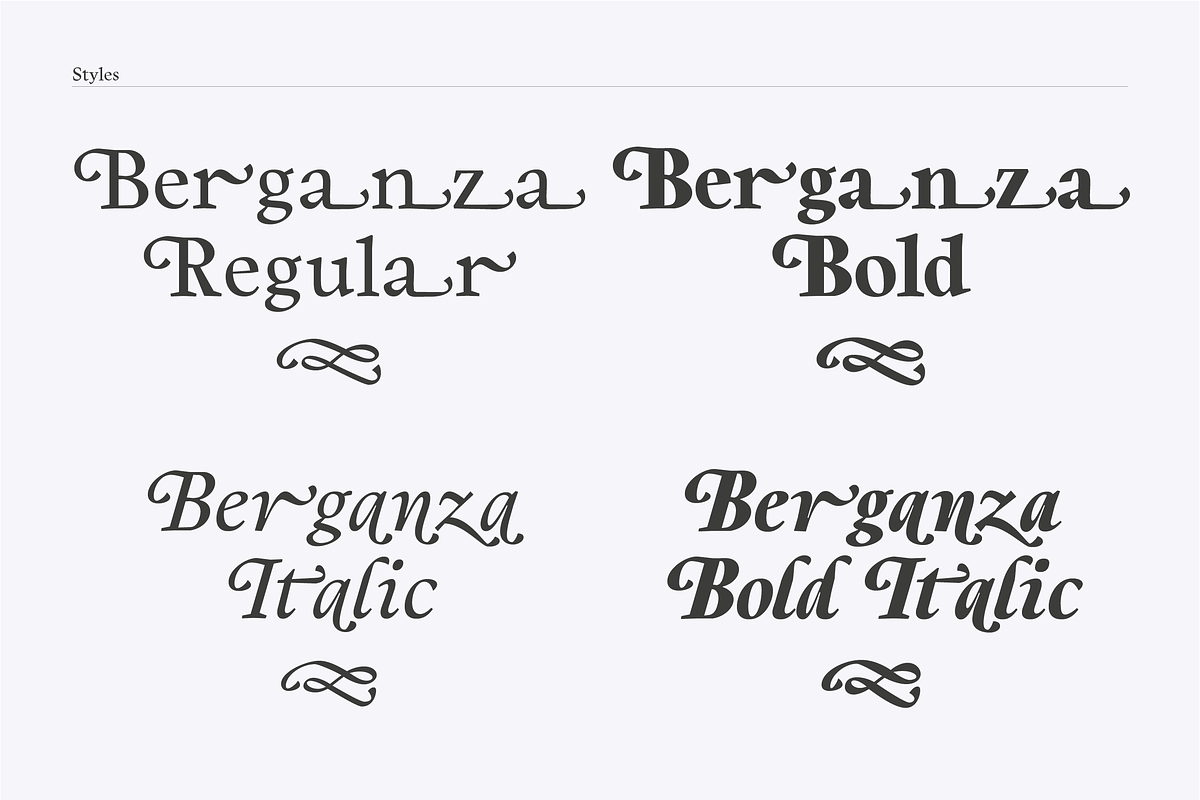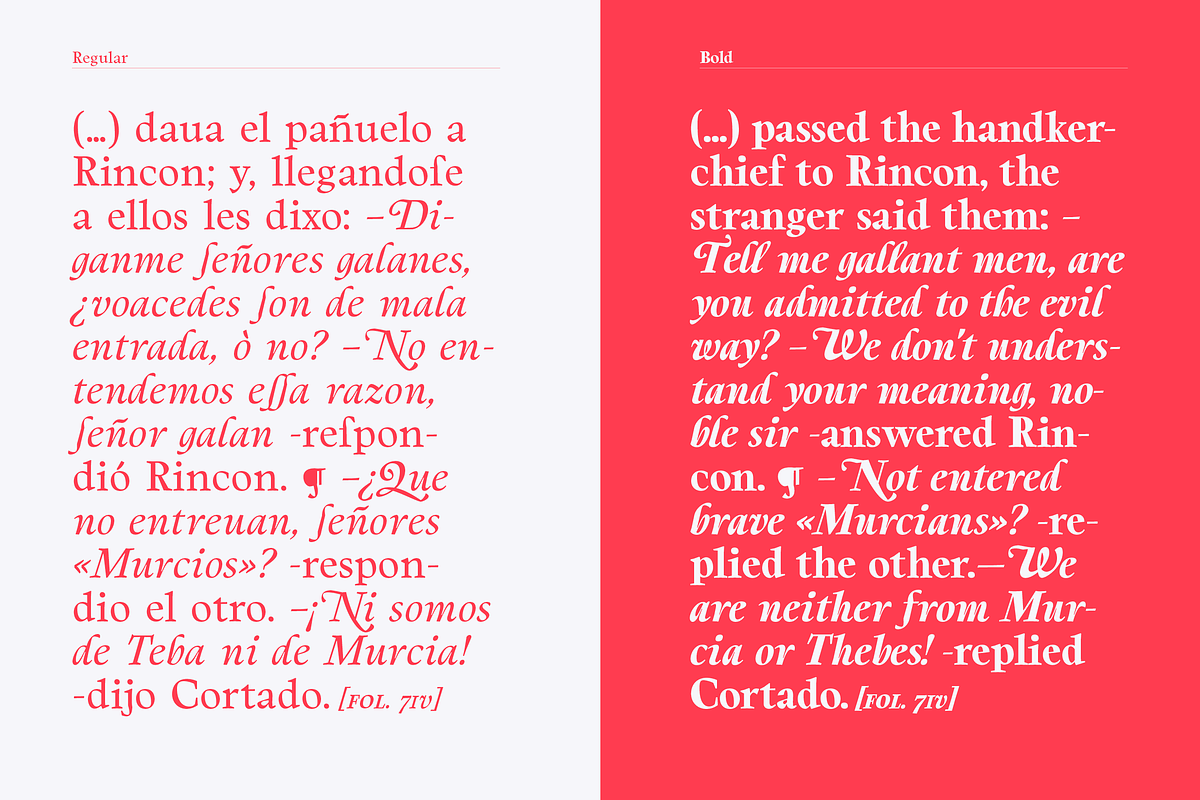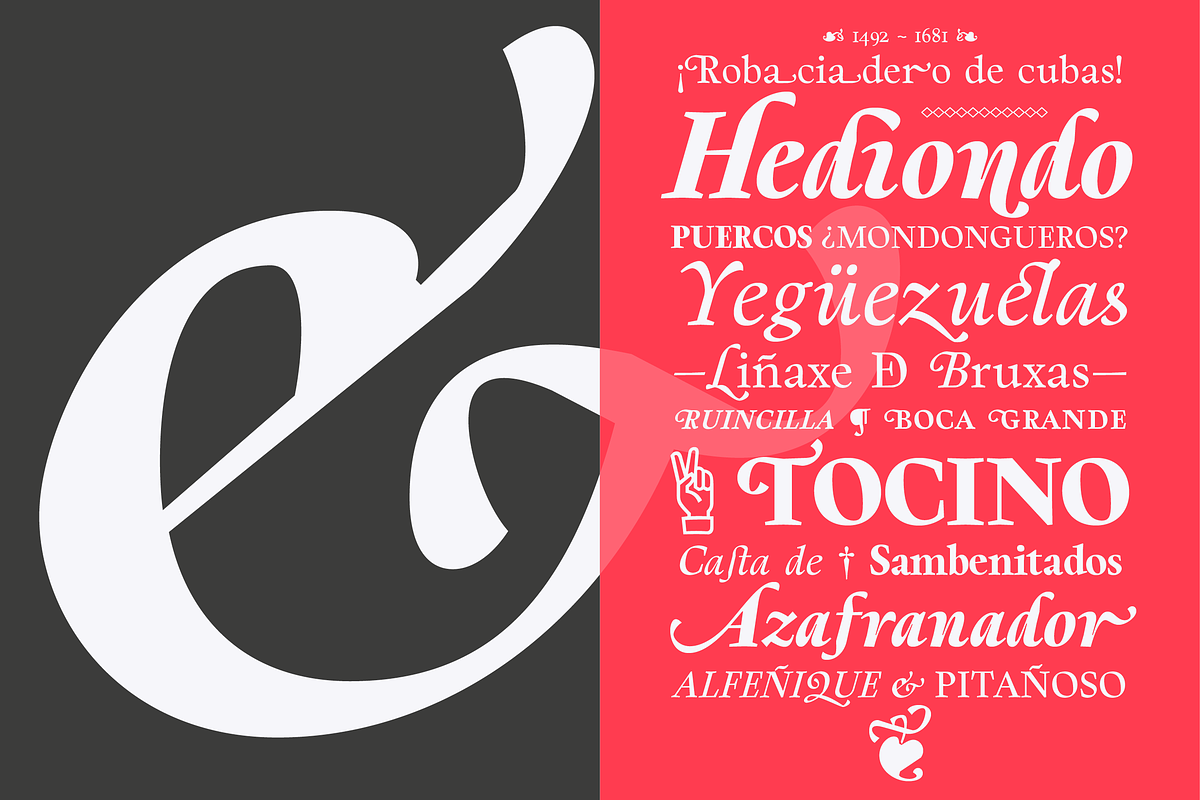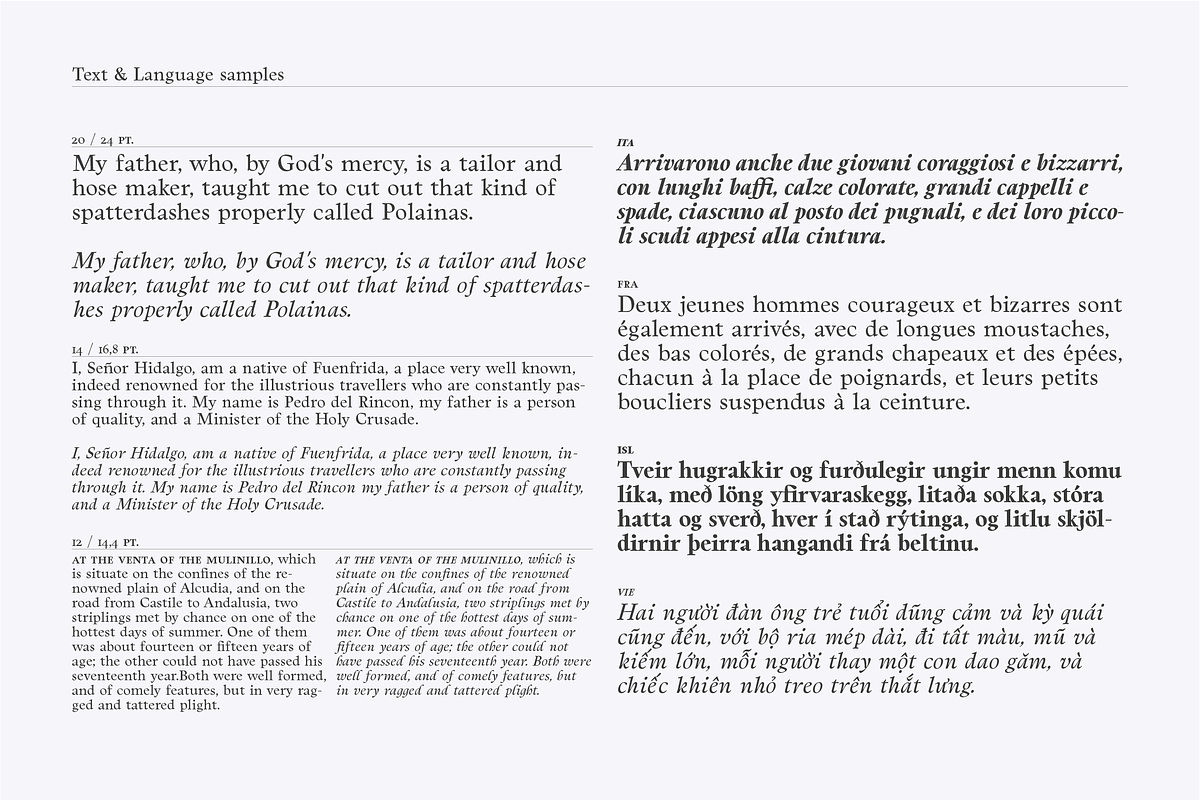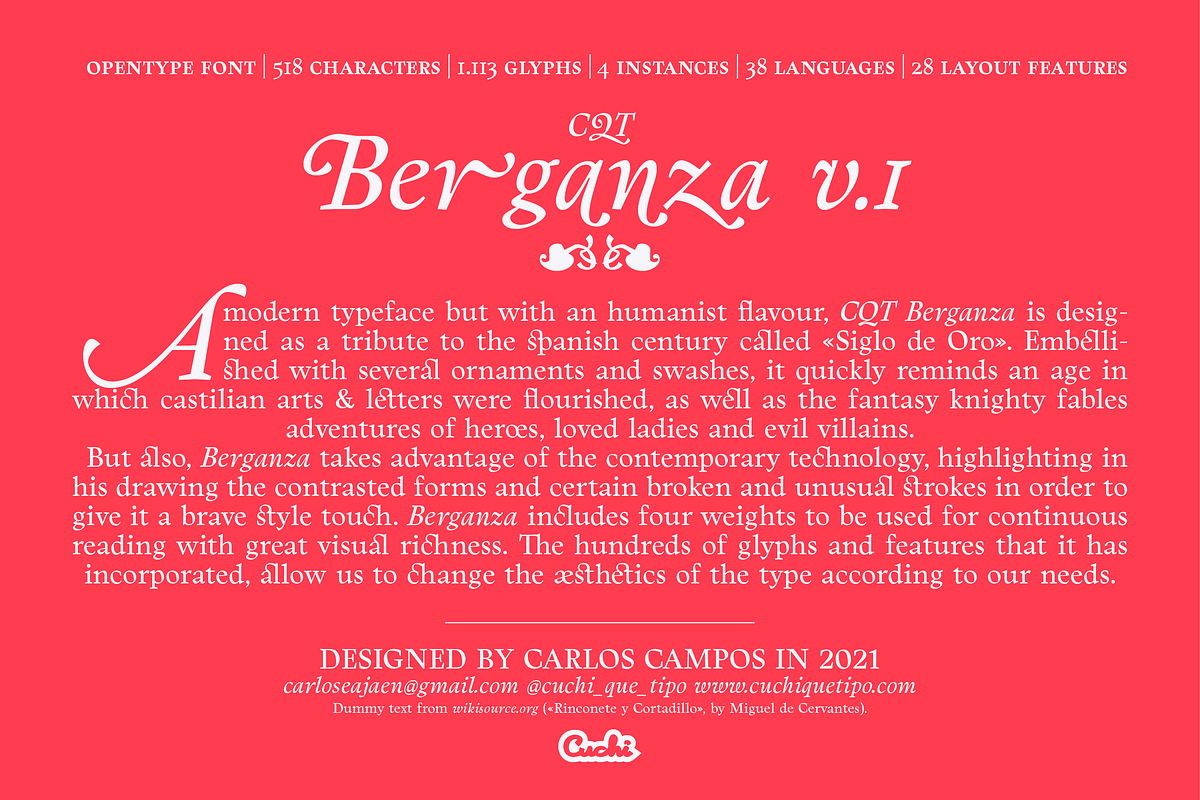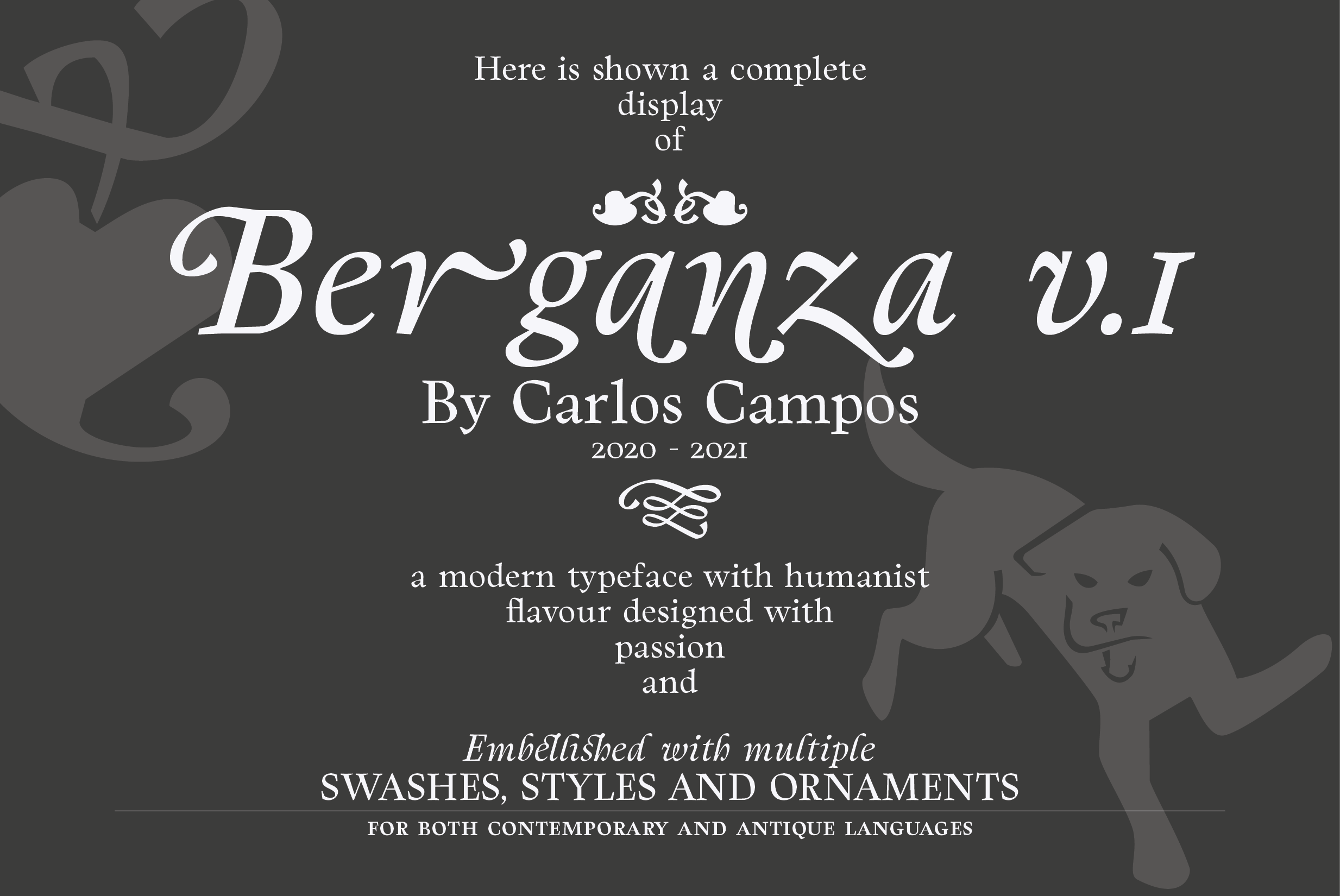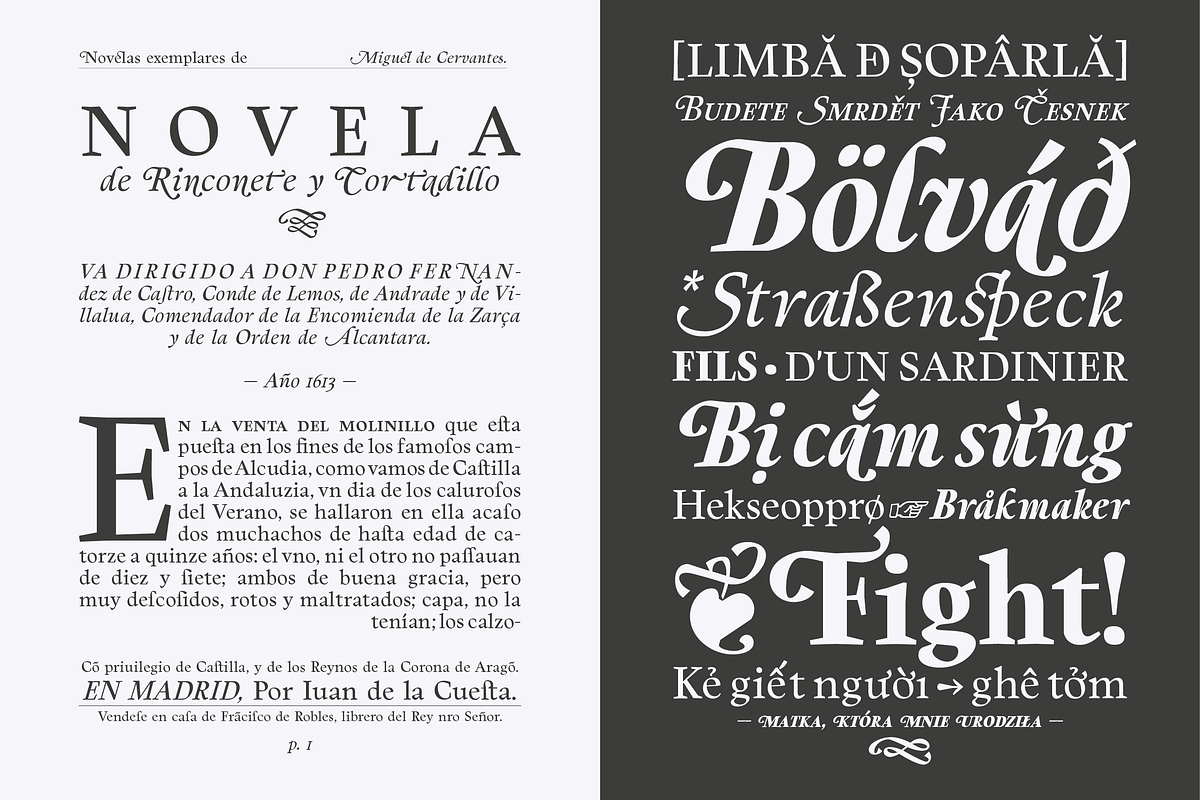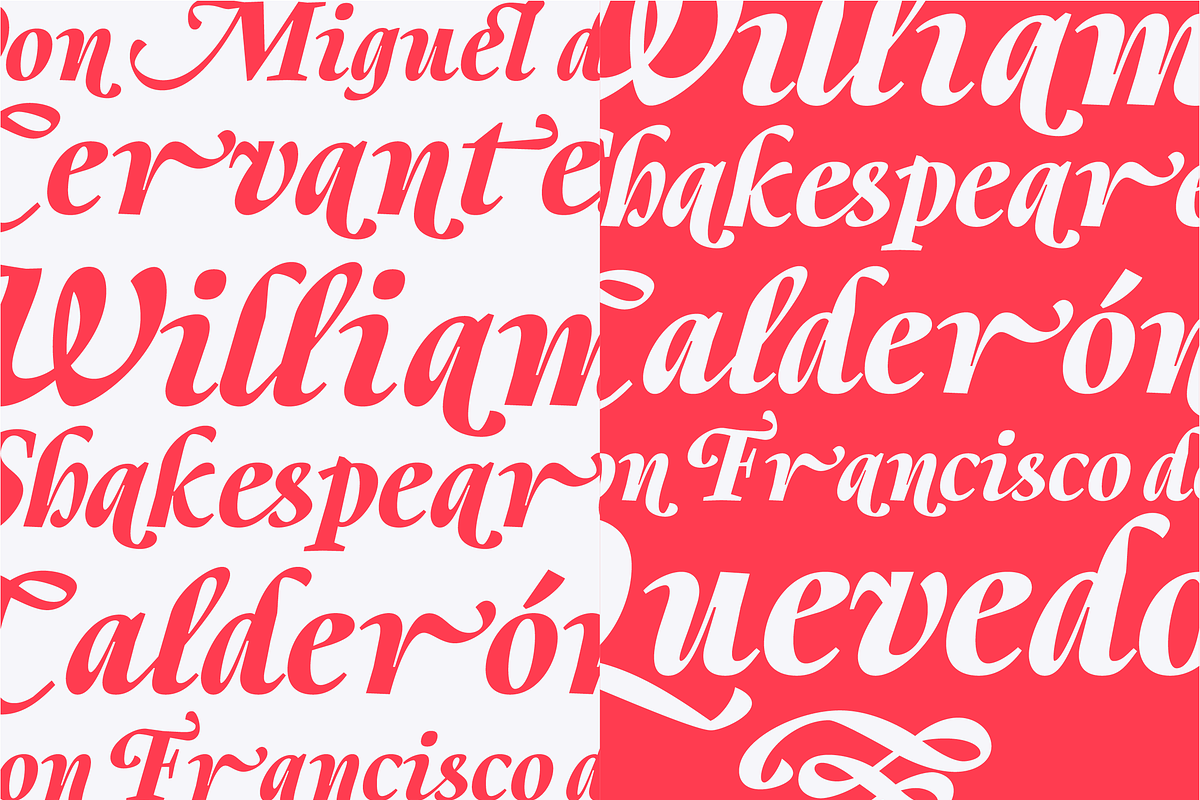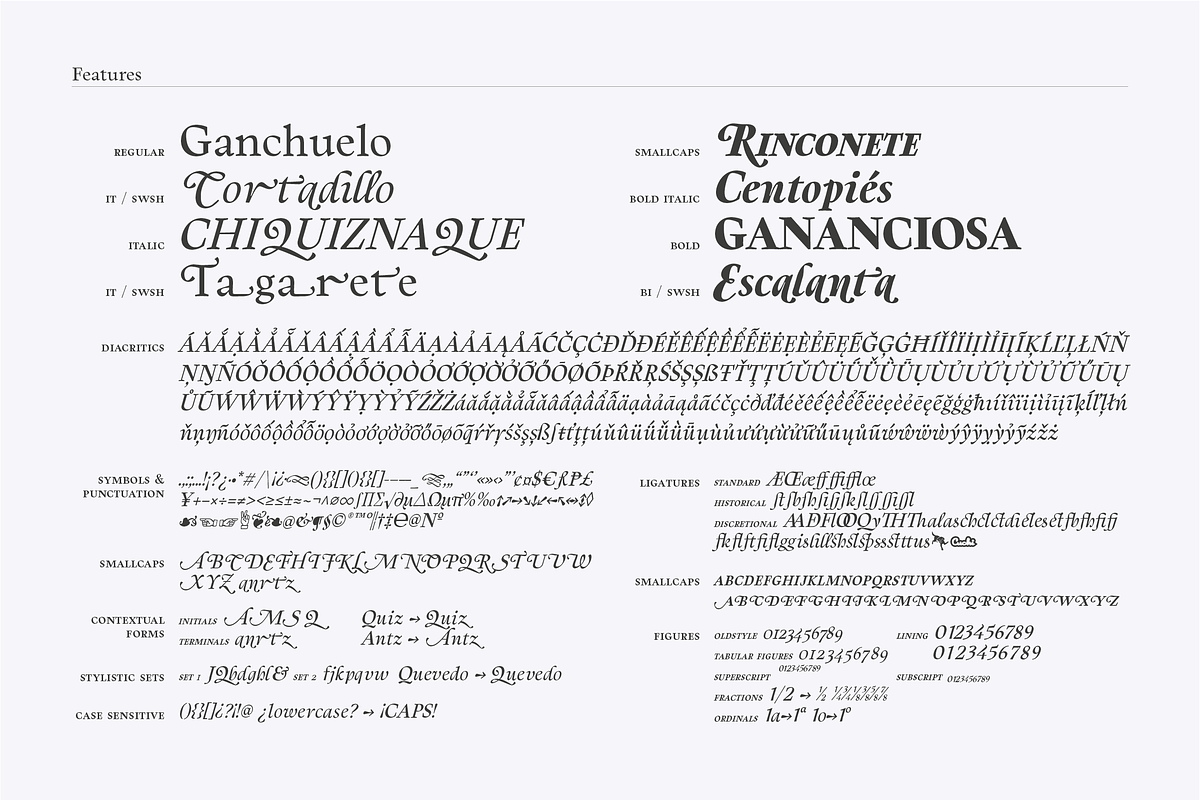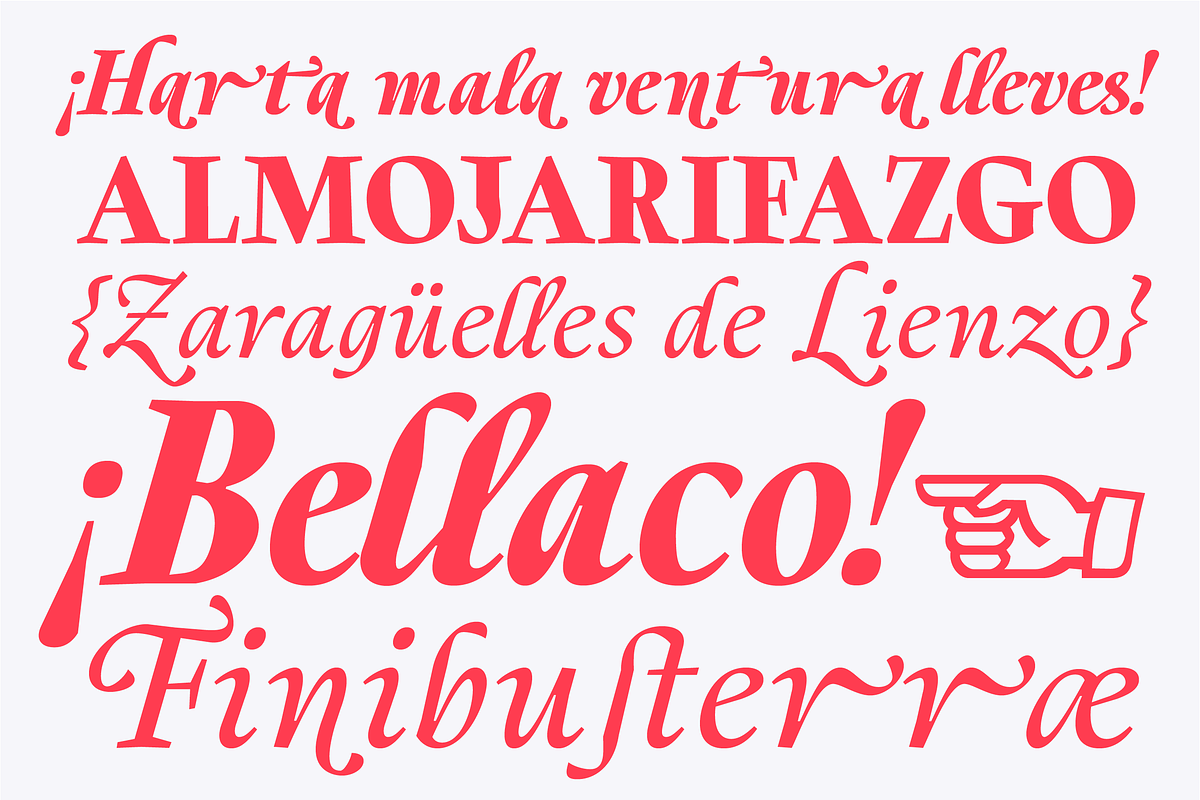
Berganza Font
BERGANZA is a humanistic serif font designed by Carlos Campos (Cuchi, Qué Tipo!).
Berganza is a typeface designed as a tribute to the spanish century called Siglo de Oro. Embellished with several ornaments and swashes, it quickly reminds an age in which castilian arts & letters were flourished, as well as the fantasy knighty fables adventures of heroes, loved ladies and evil villains. Berganza typeface takes its name from the main character of the picaresque novel The Conversation of the Dogs (Cervantes, 1613). The dog Berganza is able to speak with the other dog Scipio on a big number of social & philosophical topics.